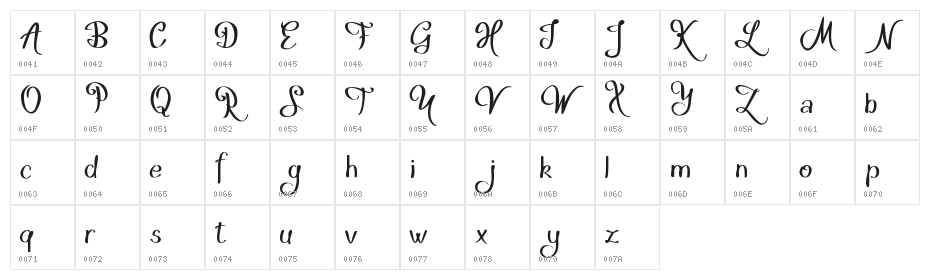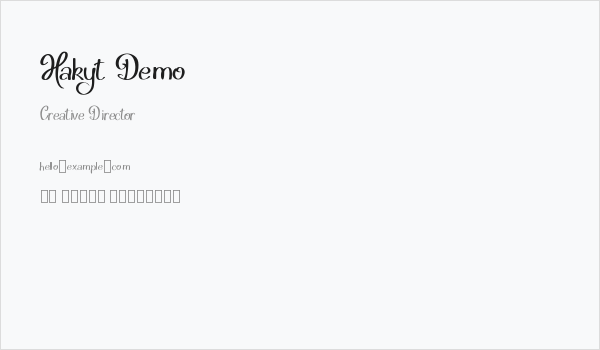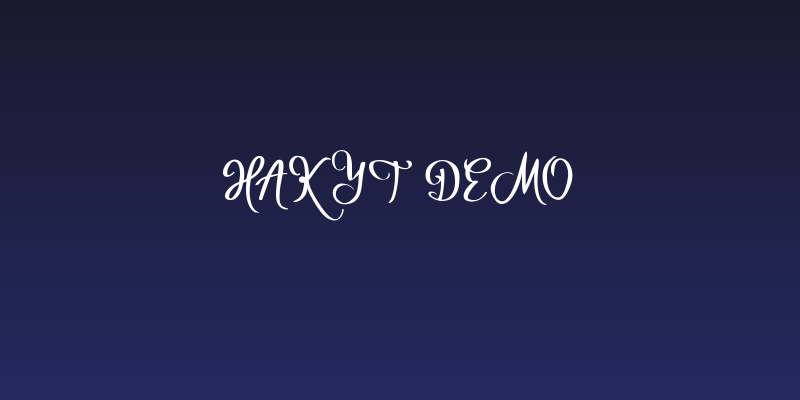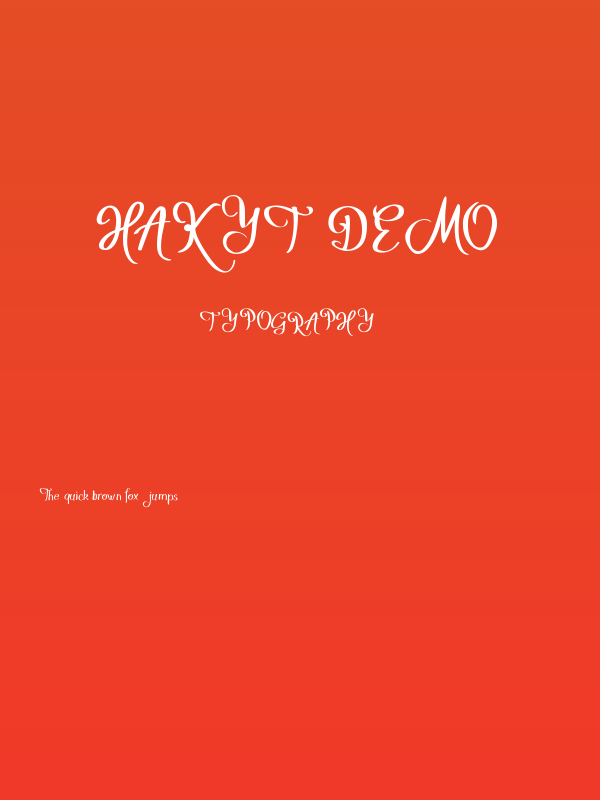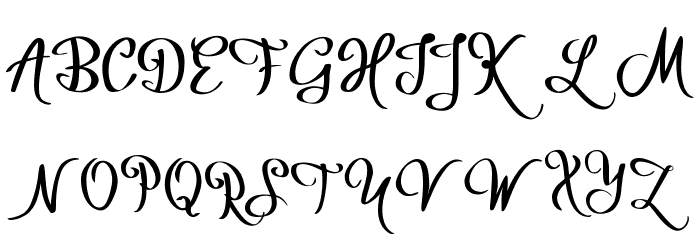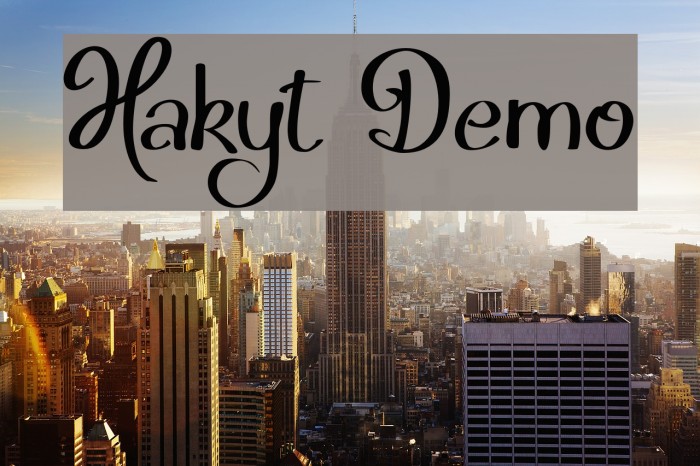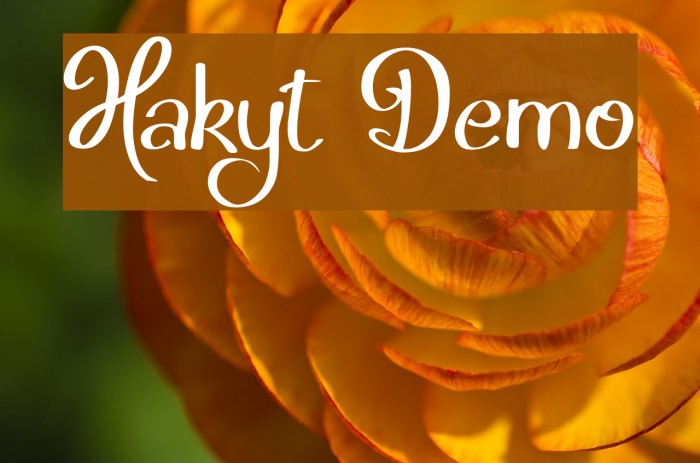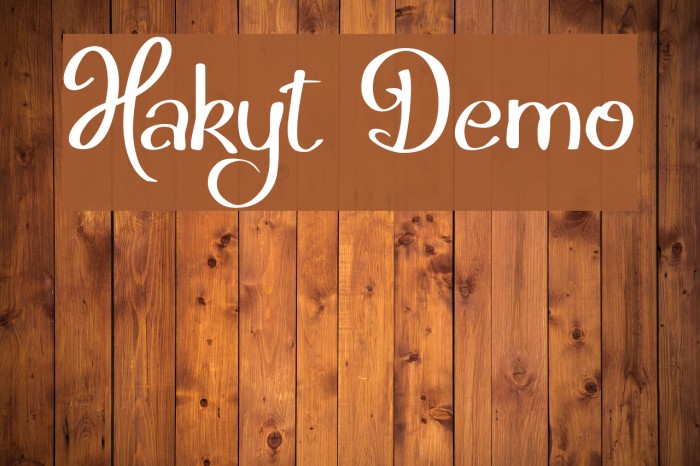
Hakyt Demo Font
Hakyt Demo Description
This font features an elegant and flowing script style, characterized by its ornate and decorative letterforms. The uppercase letters exhibit a graceful, sweeping motion with intricate loops and curves, giving them a sophisticated and artistic appearance. The lowercase letters maintain a consistent style, with some characters displaying unique flourishes that add to the overall charm. The font's design is both playful and refined, making it suitable for creative and expressive projects. Its distinctive style is reminiscent of calligraphy, offering a sense of fluidity and movement. The font is versatile, capable of conveying elegance and creativity in various contexts.
| Proposed Projects | Ideal for wedding invitations, greeting cards, branding, and artistic projects requiring a touch of elegance. |